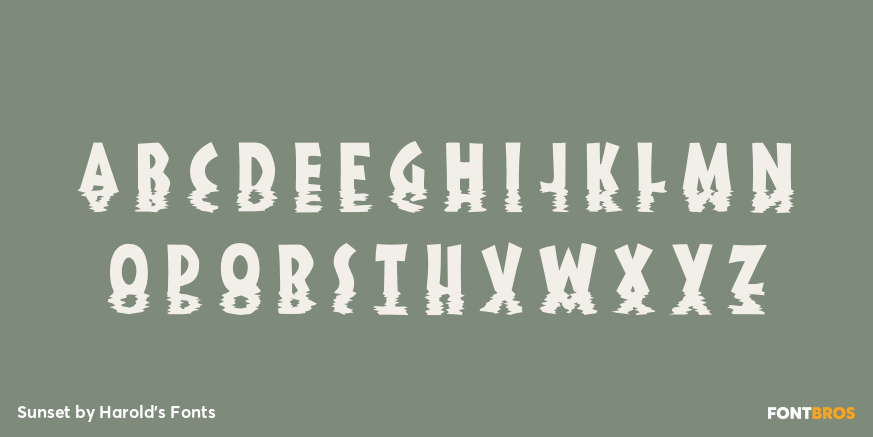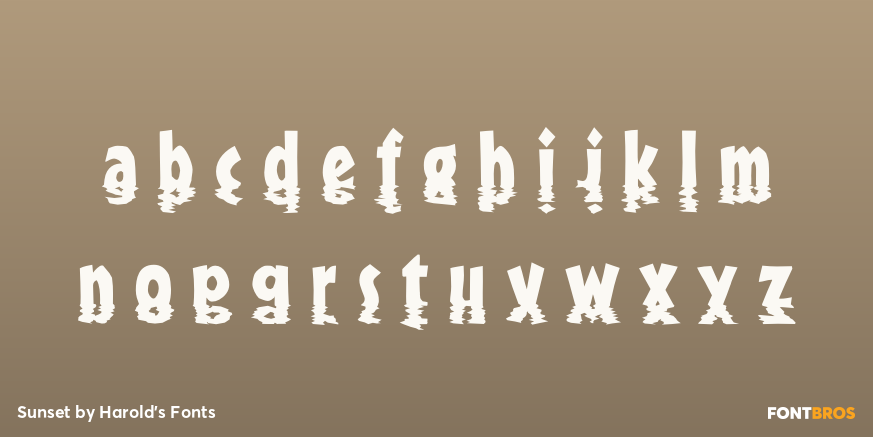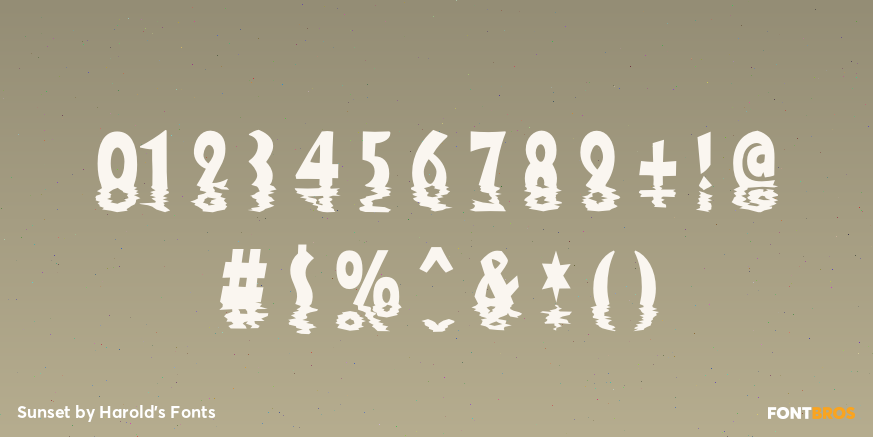
Sunset
Font Family by Harold's Fonts
SUNSET is a special effects font, simulating letters sinking into water and making rippled reflections. The basic letterforms are based on an unreleased condensed version of my Bride of the Monster font. It pushes legibility but can be very effective in the right context.